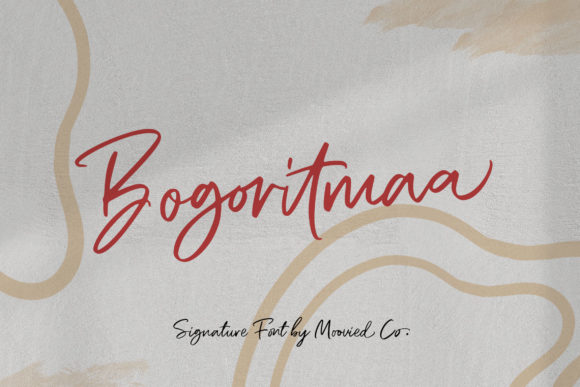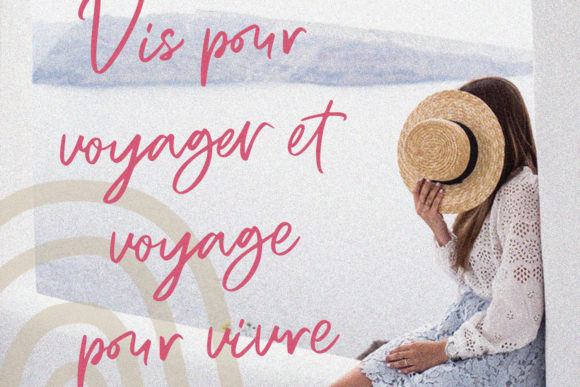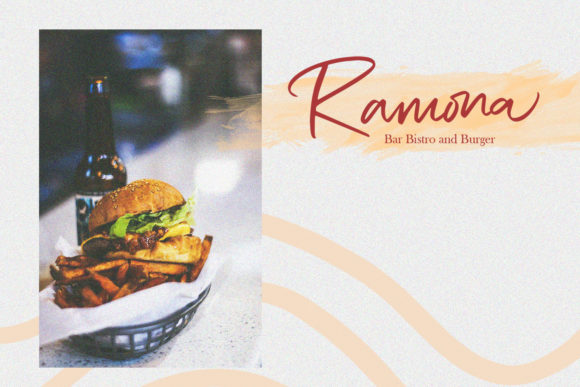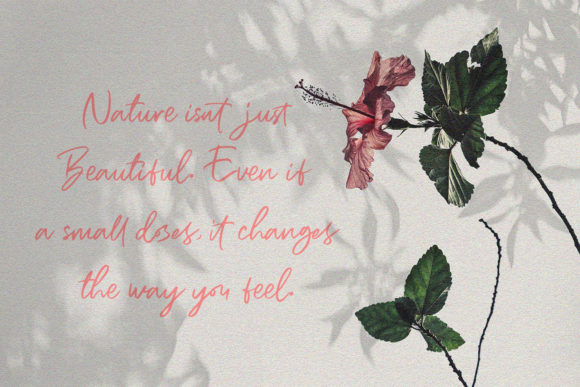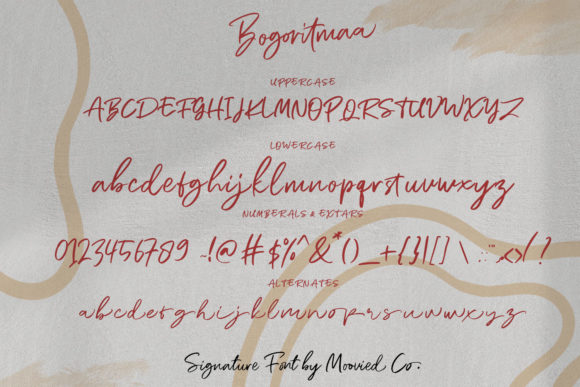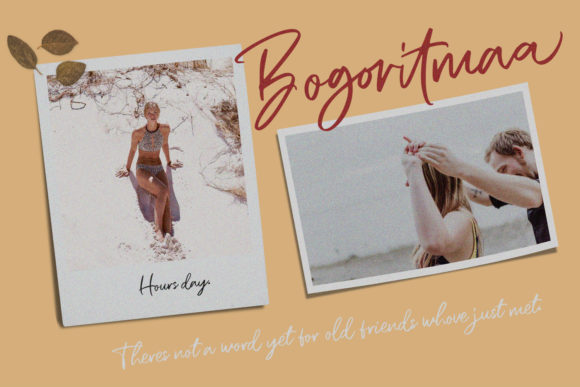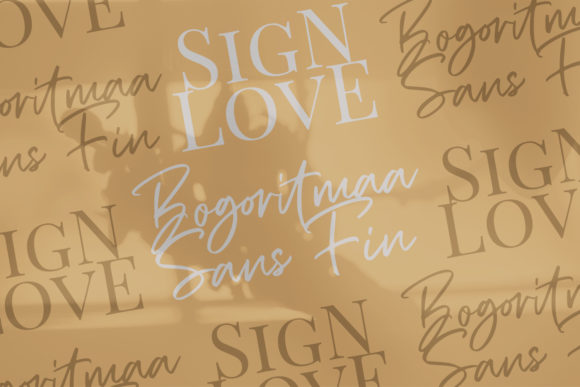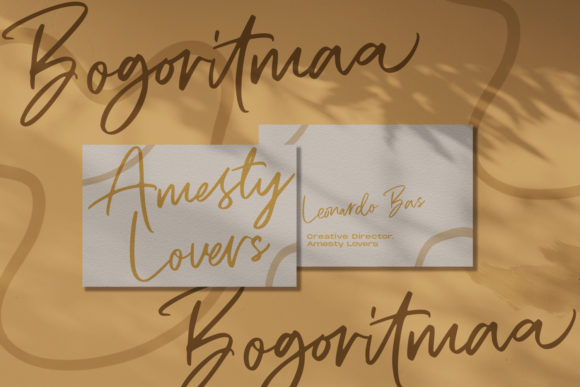
Bogoritmaa Font
About Bogoritmaa Font
Bogoritmaa is a modern signature font with a unique style. It will easily add a personal touch to any crafting idea!